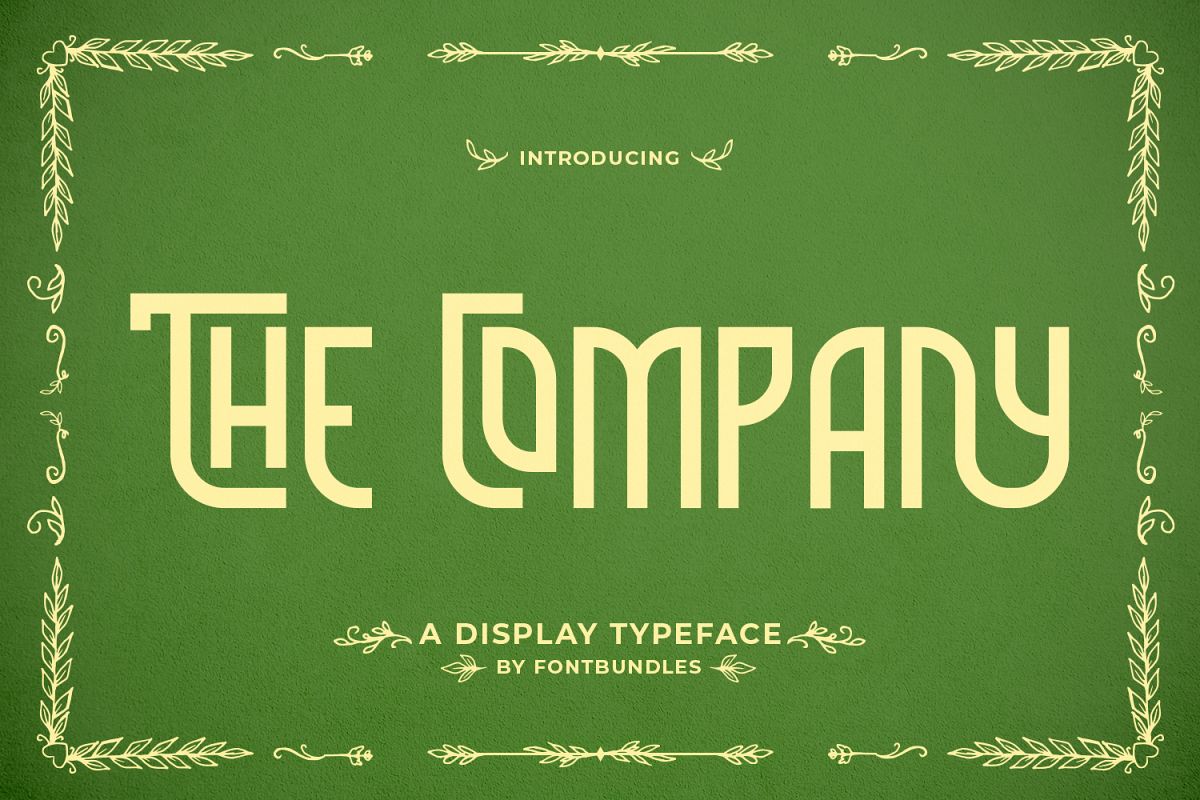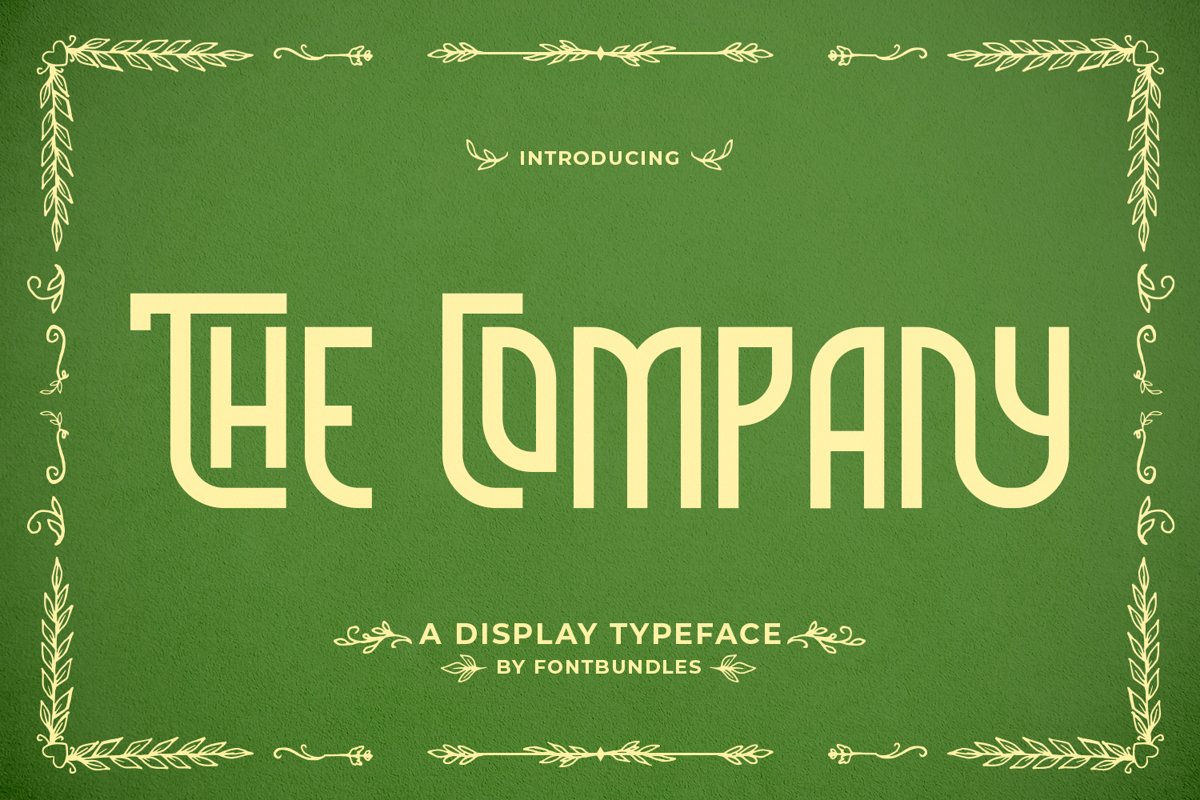
The Company is a fancy display typeface with many alternative. Perfect for badges, packaging, product, branding, shop, headline, lettering quote print and manymore.